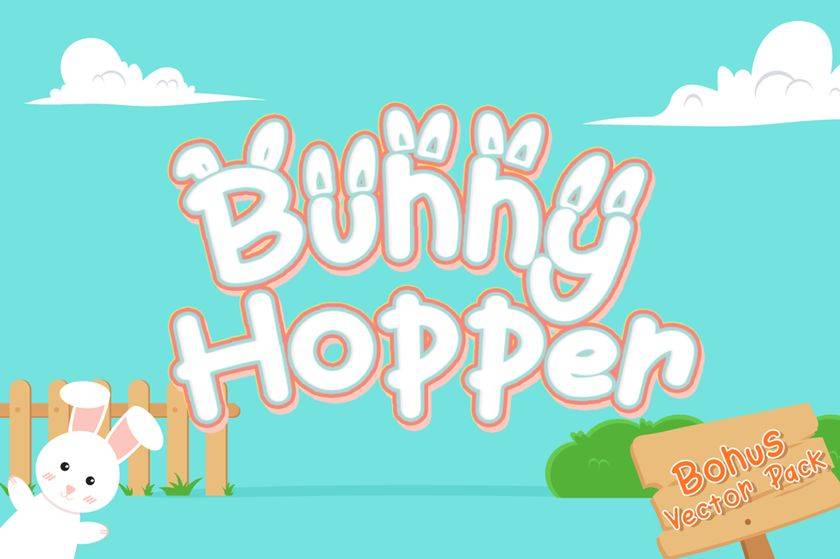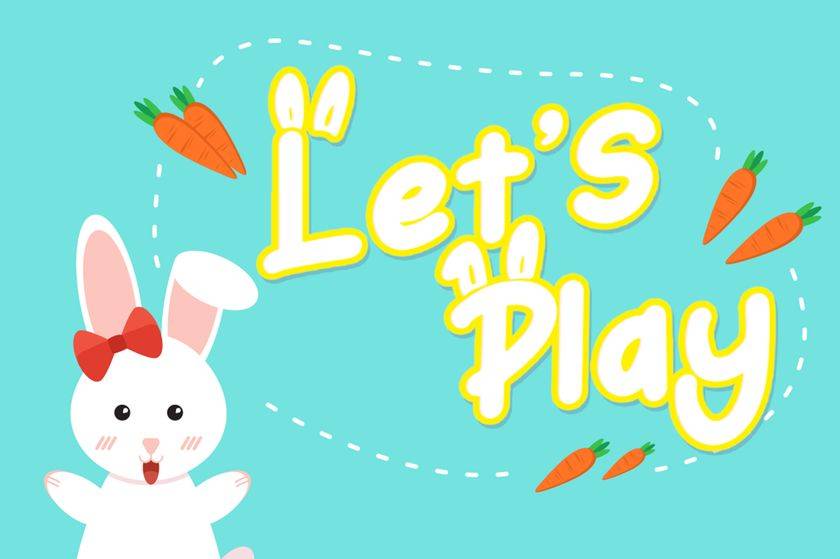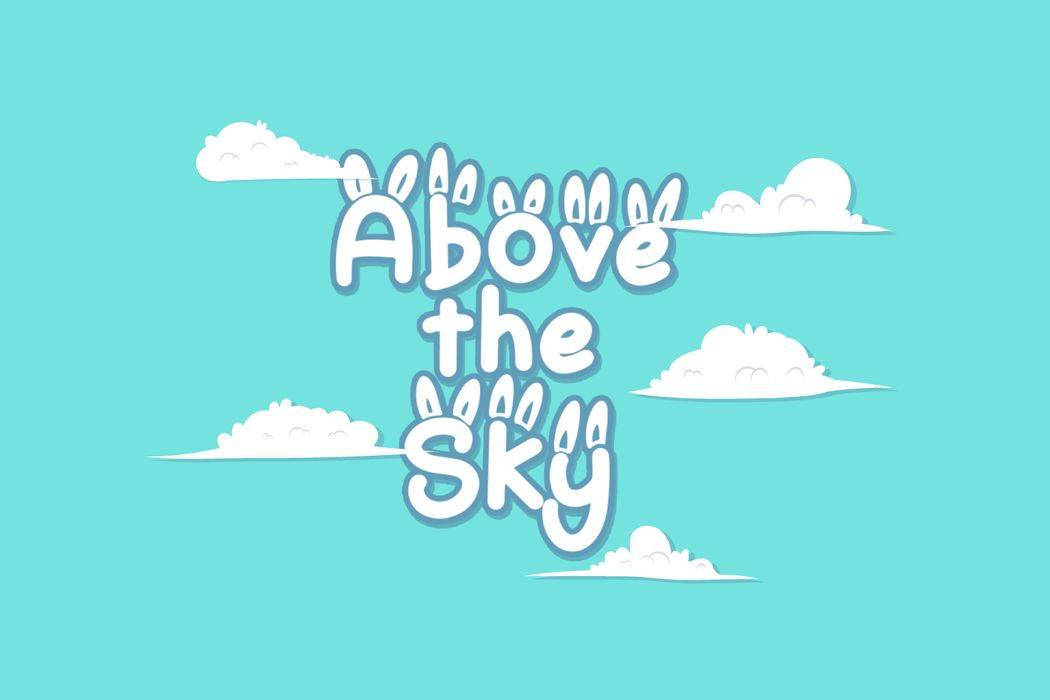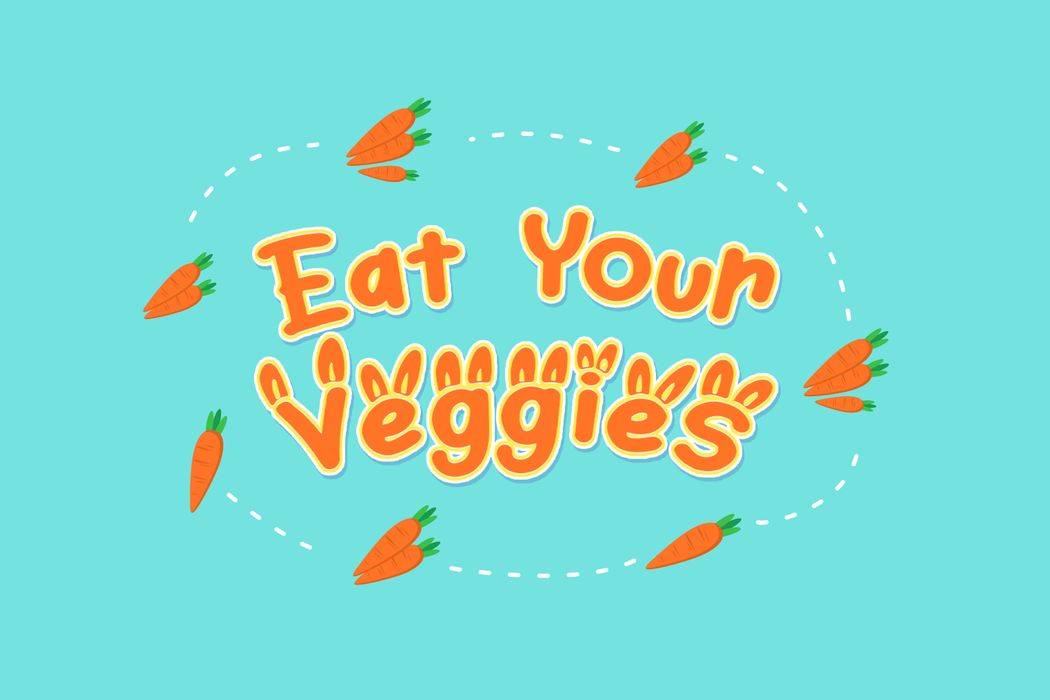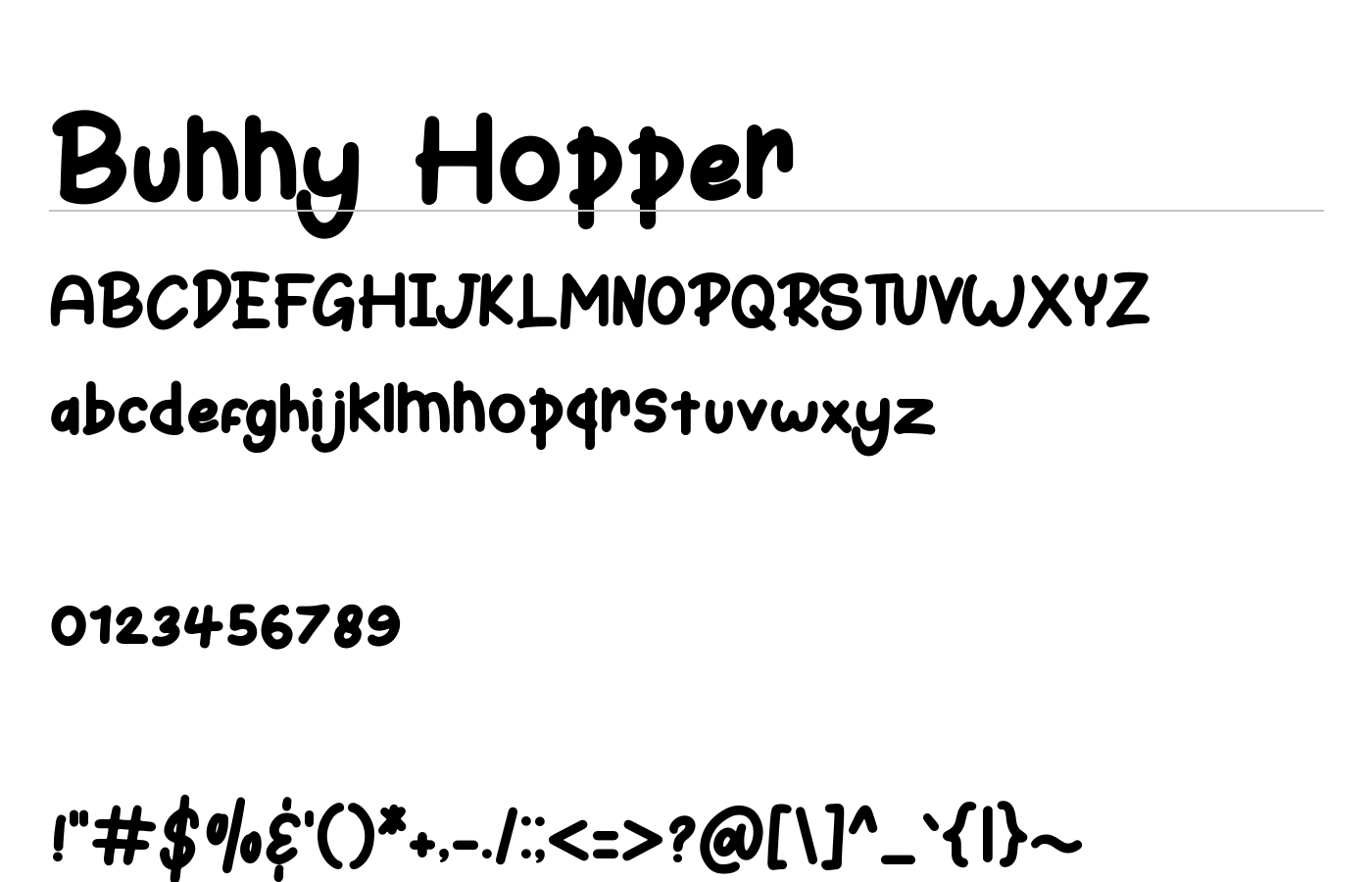
Bunny Hopper is a playful and rounded sans serif font with a casual, handwritten feel. It features bold, soft strokes with a slightly uneven texture that adds charm and approachability, making it perfect for children's books, informal branding, and lighthearted designs. Its friendly personality and clear readability make it ideal for fun, creative projects that want to convey warmth and cheerfulness.
Bunny Hopper Font
About Bunny Hopper Font
| Font family | Bunny Hopper Font |
| Release date | 2019-03-25 |
| Designer | Attype Studio |